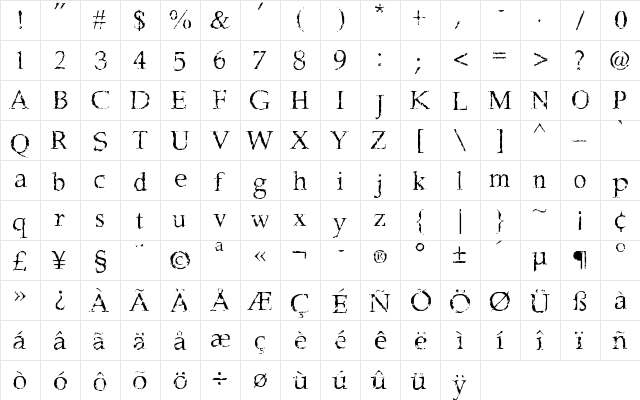
Frank Black Regular
Design Context for Frank Black Typeface
Frank Black is a composed and adaptable typeface that performs quietly and consistently across a wide range of design contexts.